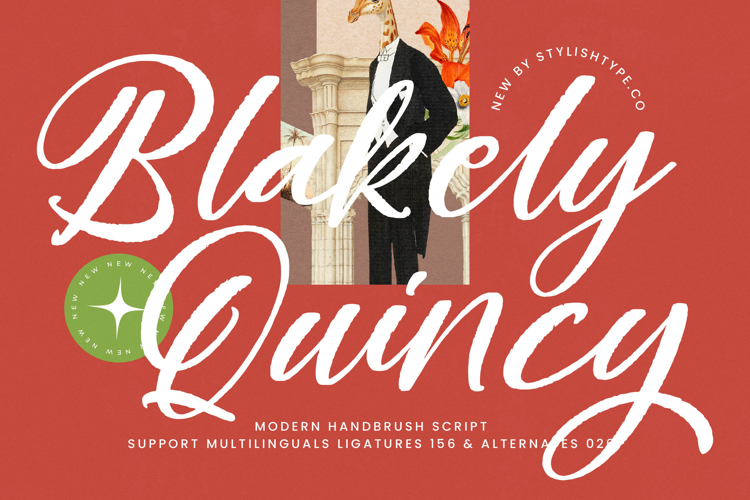
Blakely Quincy - Bold Handbrush Script
Blakely Quincy - Bold Handbrush Script is a striking, high-contrast display script designed to command attention. It perfectly balances the spontaneous energy of genuine brush lettering with the refined structure needed for professional application. The dynamic, sweeping connections and raw, irregular edges ensure your text never looks digitized, delivering an unmistakable, handcrafted appeal essential for high-impact visual communication.